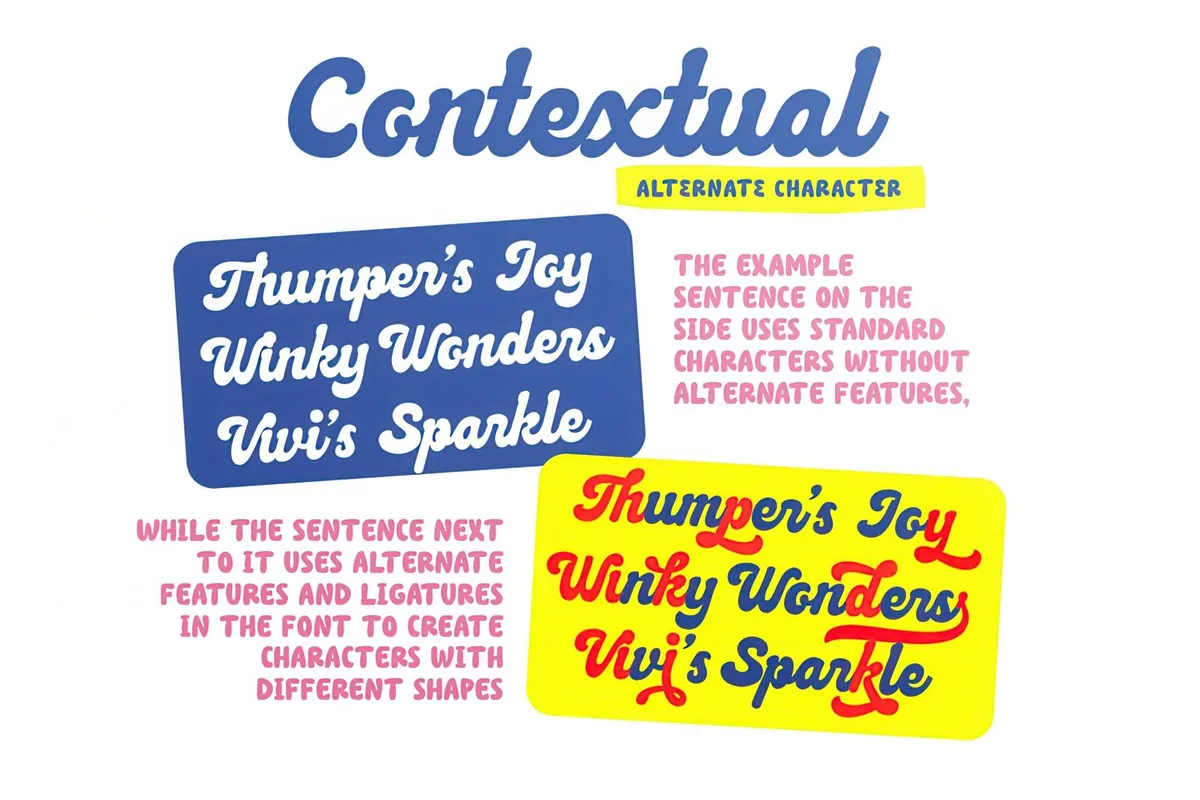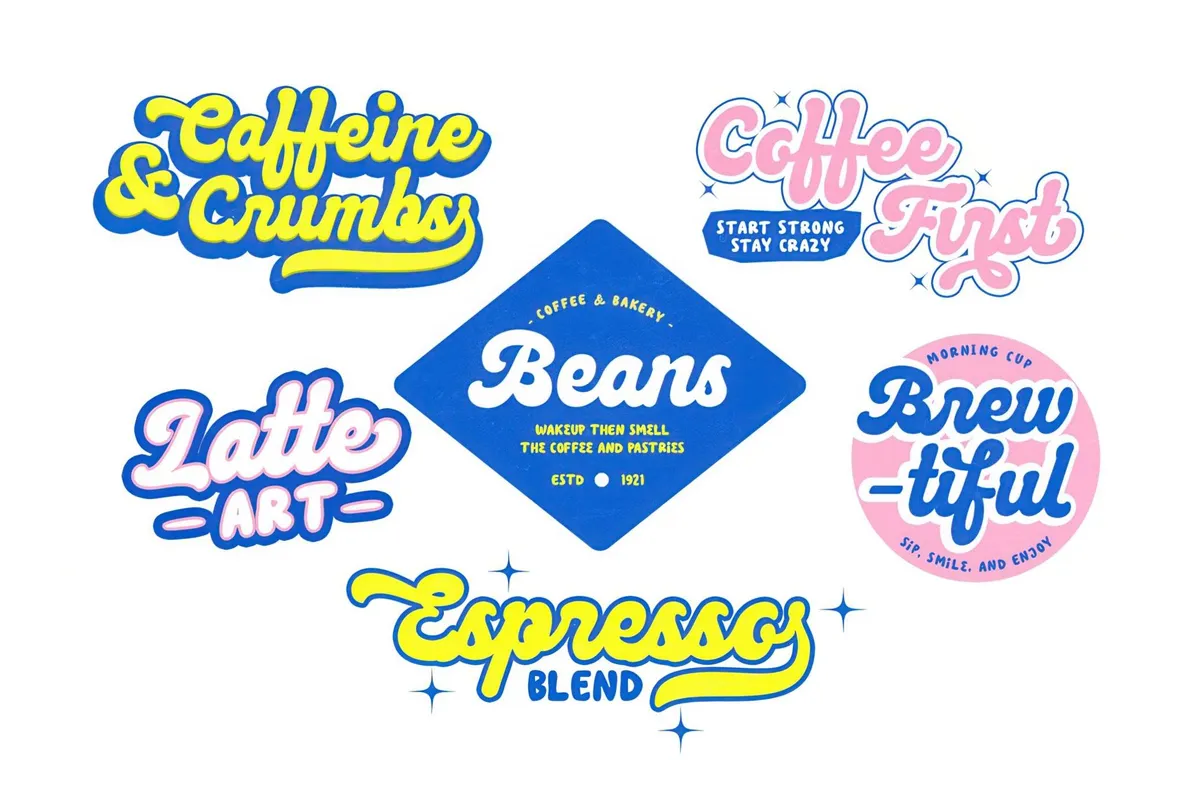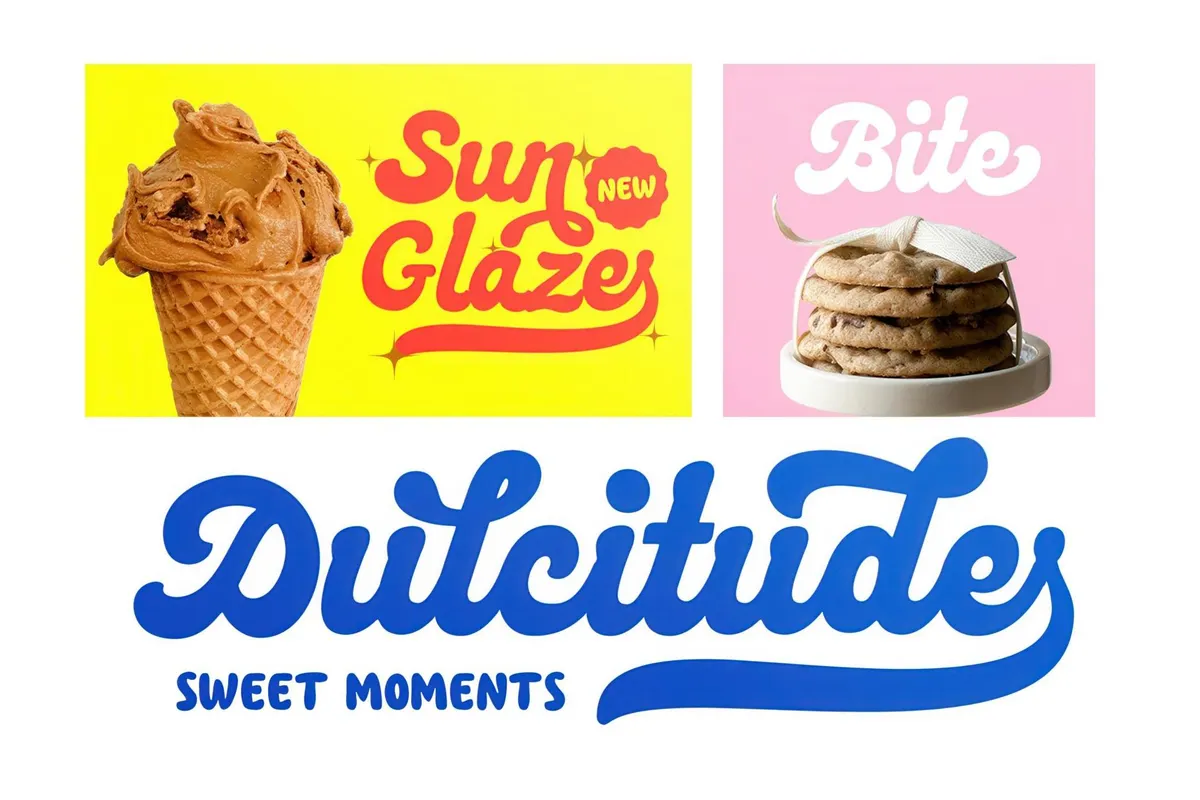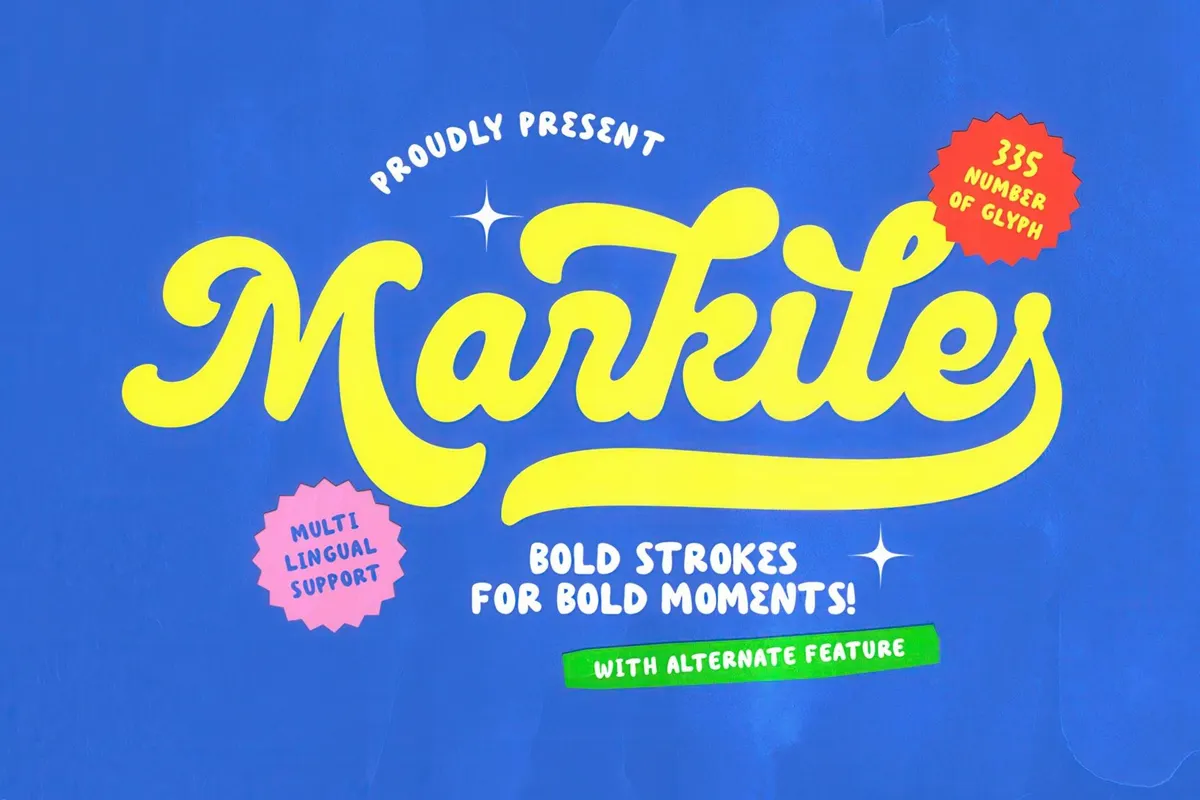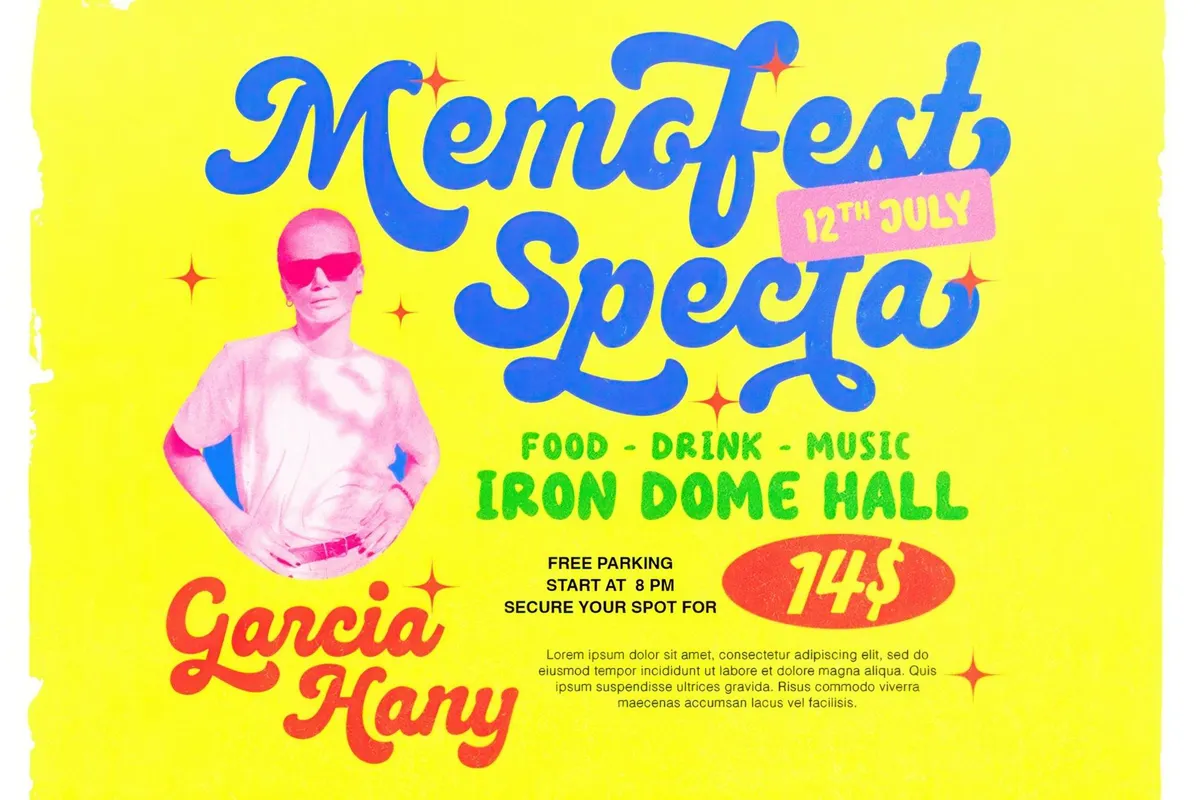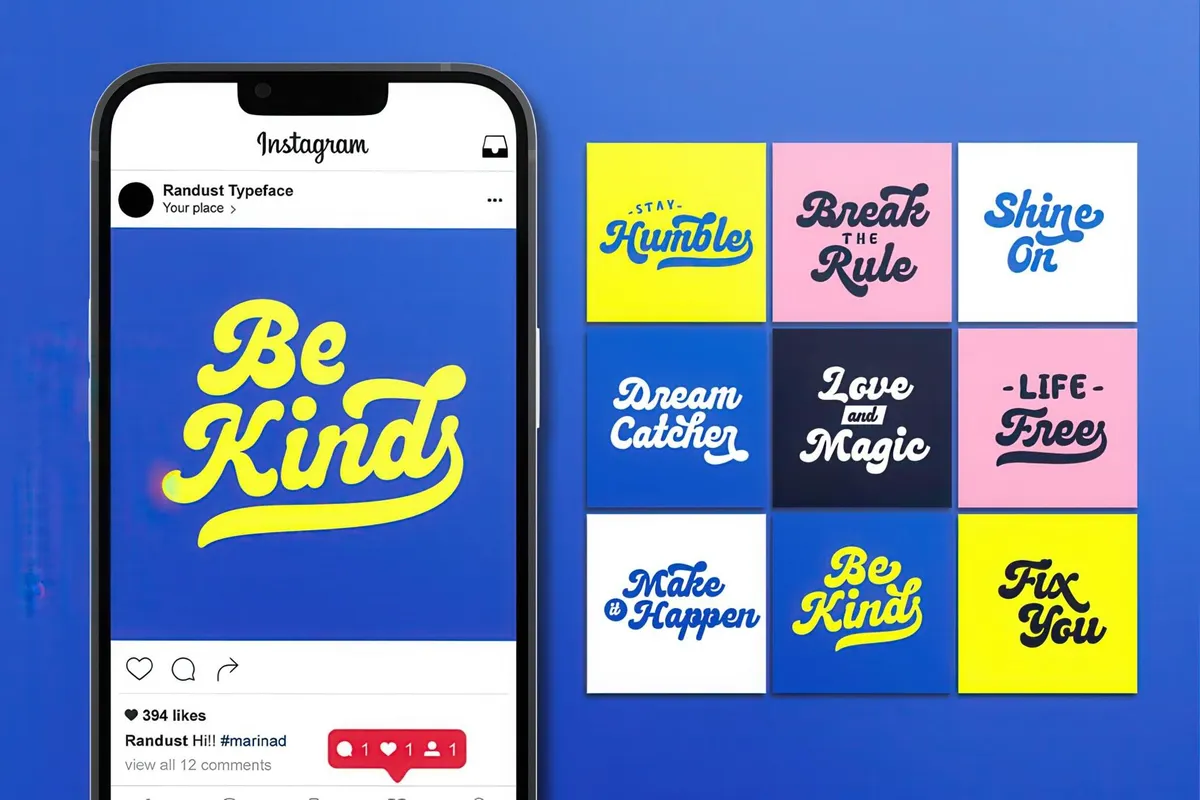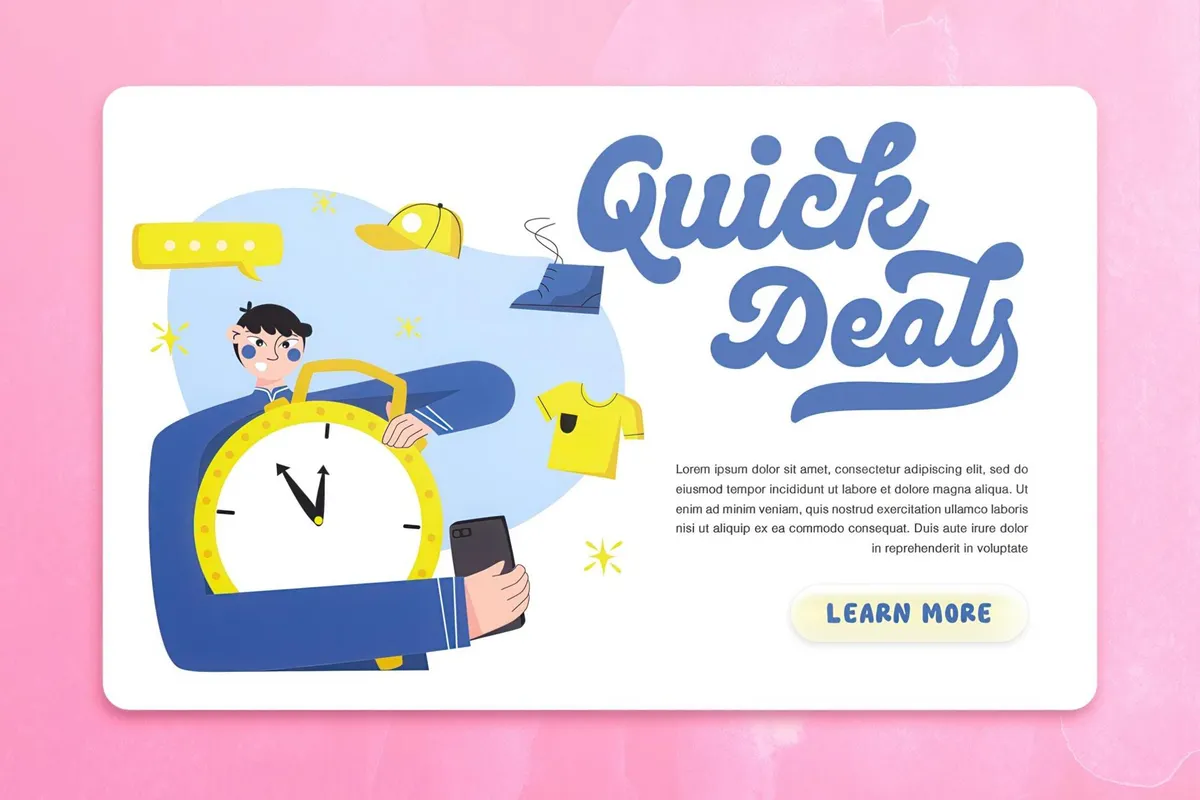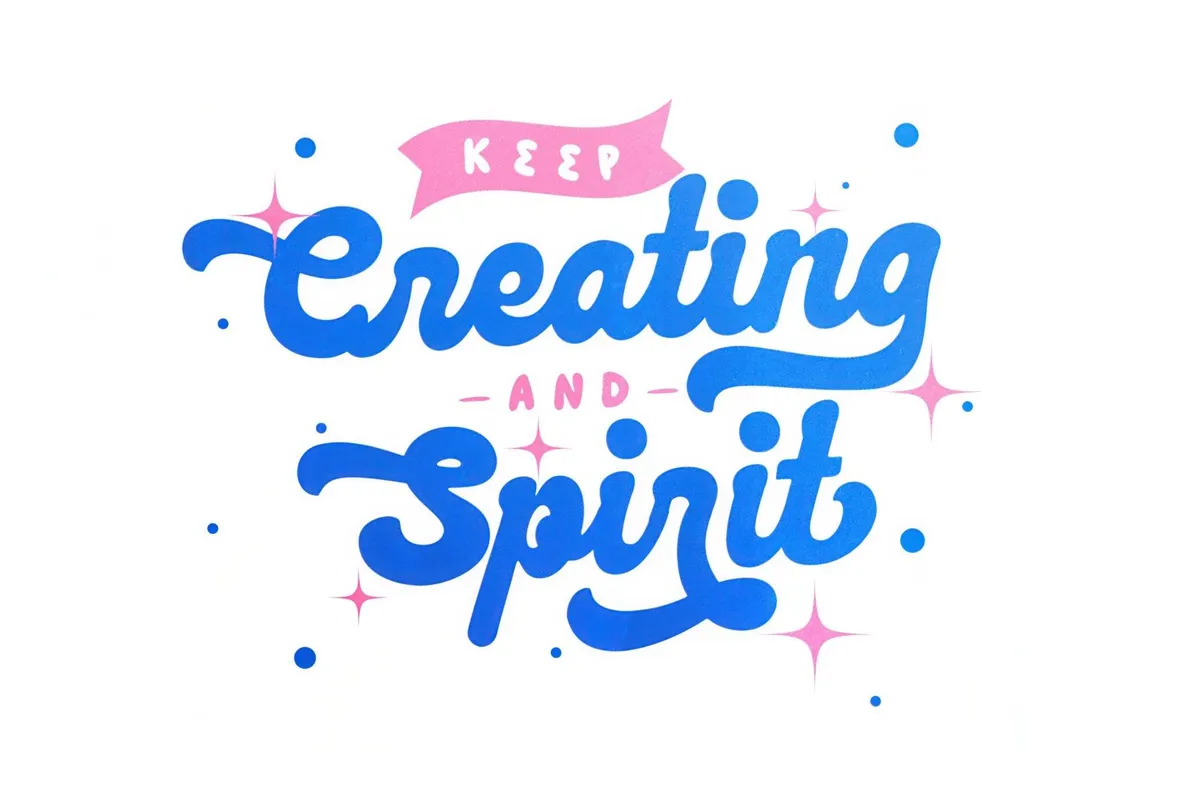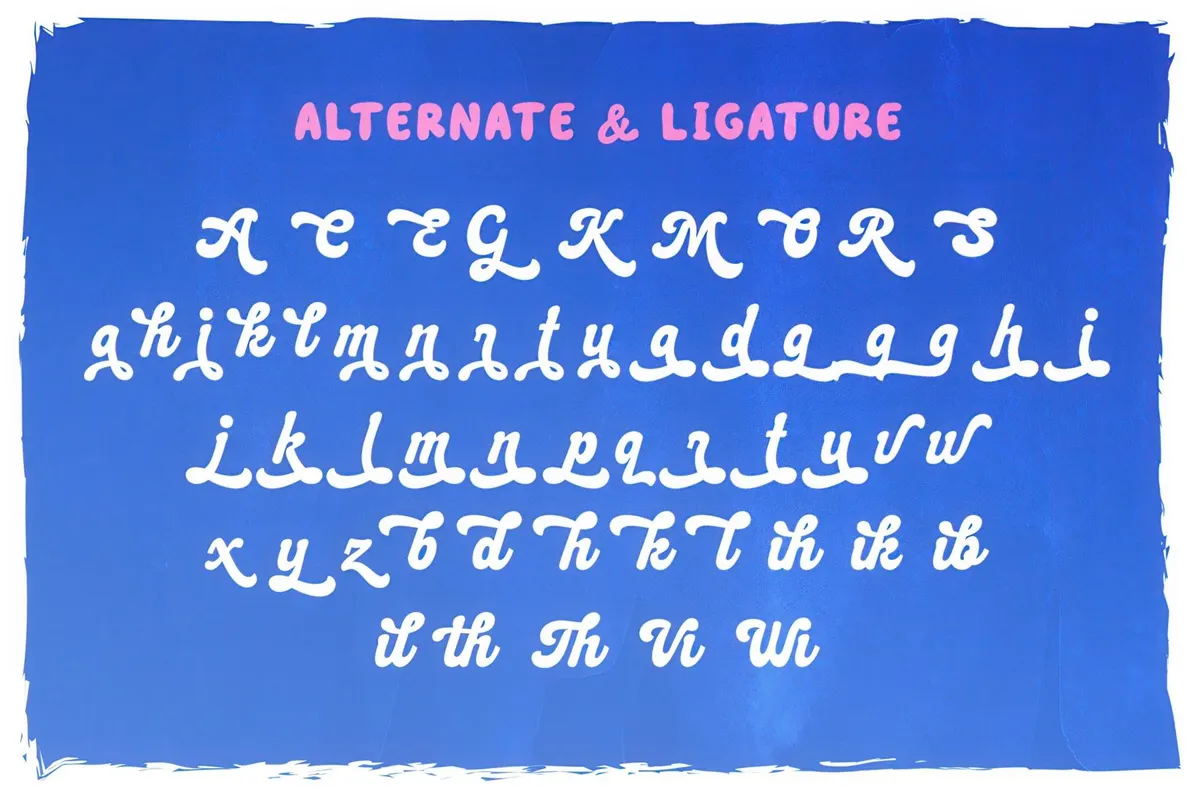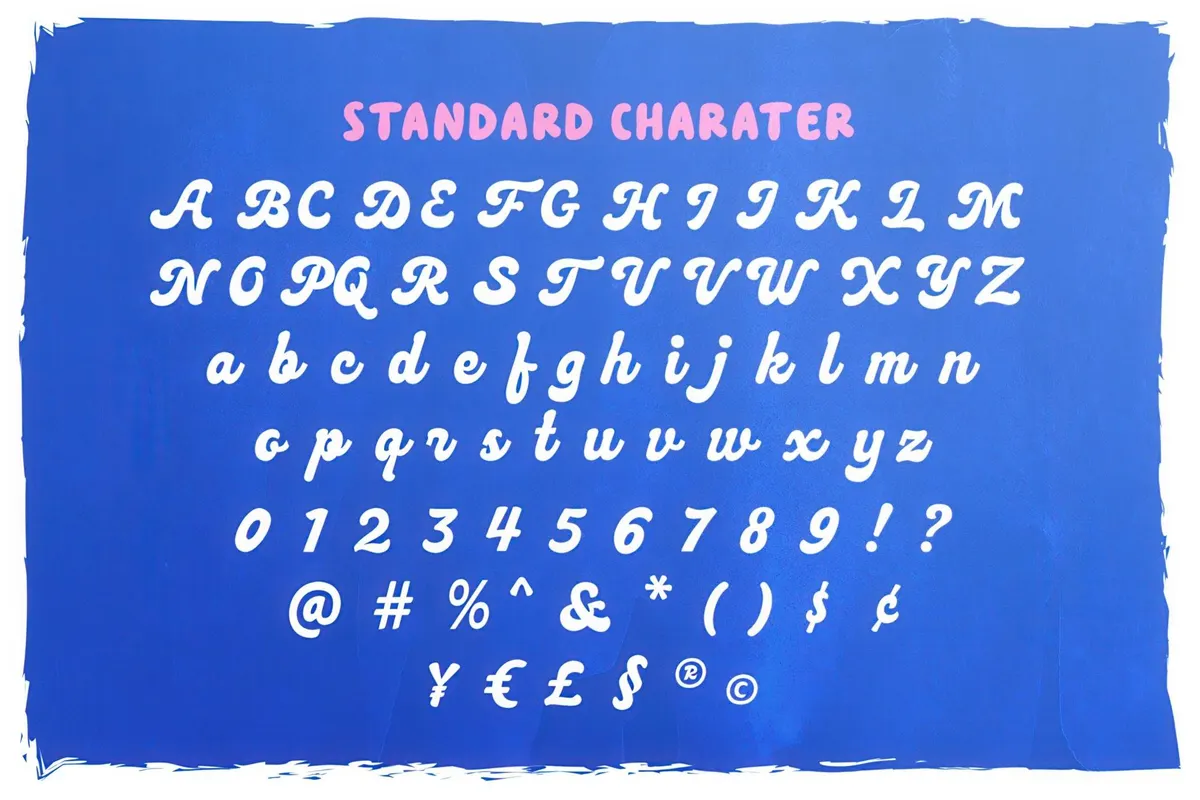
Markile — Bold Rounded Script
Markile
Markile is a bold script display font with a hand-lettered, retro aesthetic, bringing you back to the 60s and 70s typography. It's got flowing, connected letters with expressive curves and loops with popping thick strokes — making it ideal for headlines and eye-catching designs.
Markile brings exaggerated curves and a bubbly personality of vintage signage — which you can transfer further to social media posts, event flyers, or branding for lifestyle and creative industries. The character set includes upper and lower case numbers, symbols, punctuation, multilingual support, and alternate characters.